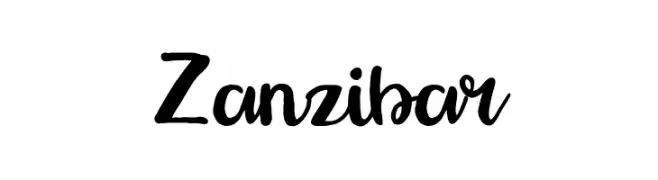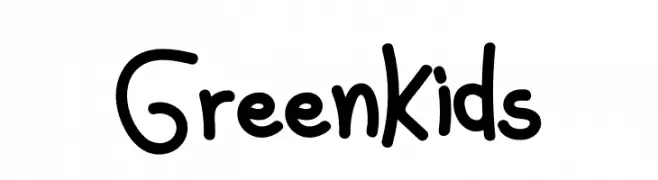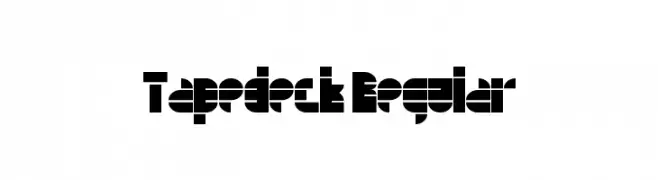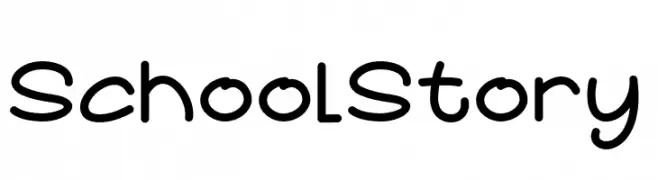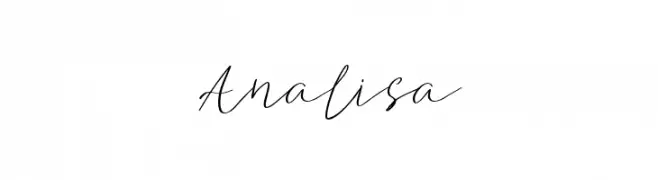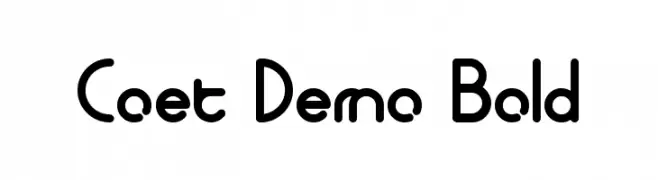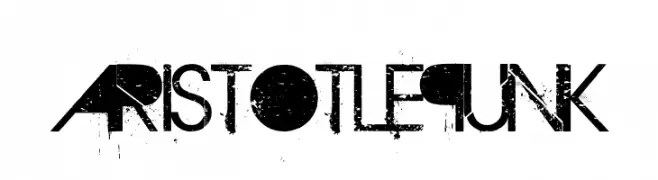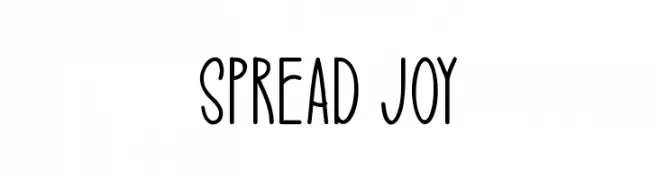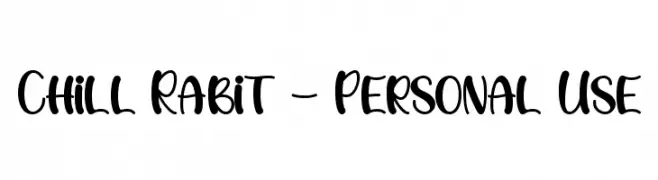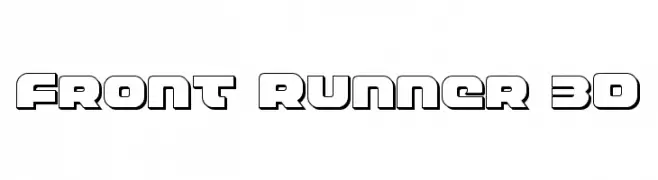
An elegant script font with flowing, interconnected letters and refined curves.
A bold, playful script font with a handwritten style and high contrast.
A playful, hand-drawn font with rounded, bubbly characters.
A bold, geometric font with a modern, futuristic aesthetic.
A modern, striped font with a barcode-like appearance.
A playful, rounded font with a friendly and approachable style.
A geometric, angular, and italic font with a futuristic and modern appeal.
A playful, handwritten-style font with smooth, rounded characters.
A bold, expressive handwritten font with dynamic strokes and a playful style.
A flowing, cursive font with a natural handwriting style.
A playful and whimsical font with rounded, irregular letterforms.
A modern, bold font with rounded edges and geometric styling.
A futuristic, geometric font with rounded edges and a stencil-like design.
A bold, distressed font with a grunge aesthetic and geometric shapes.
A playful, hand-drawn font with a dynamic, tubular design.
A playful, hand-drawn font with tall, narrow letters and a whimsical style.
A lively and elegant script font with flowing, cursive letters and dramatic flourishes.
A playful, bold handwritten font with rounded edges and a casual style.
A bold, three-dimensional font with a geometric, outlined style.
A bold, three-dimensional font with a vintage art deco style.
A bold, flowing script font with a playful and elegant style.
A bold, high-contrast serif font with dramatic strokes and elegant curves.
A dynamic handwritten font with fluid, irregular strokes and a creative flair.
A bold, expressive brushstroke font with a dynamic, artistic style.
A classic serif font with elegant, slightly slanted characters and medium contrast.
A bold, playful typeface with rounded, bubbly characters.
A bold, decorative font with a vintage gradient effect and three-dimensional style.
An elegant, flowing script font with smooth, cursive strokes and graceful curves.
A playful, handwritten-style font with bold, rounded strokes and a dynamic slant.
A bold, decorative font with a patriotic stars and stripes theme.
An elegant, decorative script font with flowing, interconnected letterforms.
A bold, handwritten font with dynamic and expressive strokes.
A flowing, elegant script font with a sophisticated, cursive style.